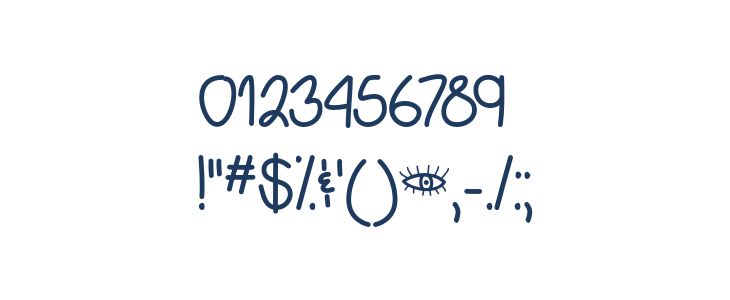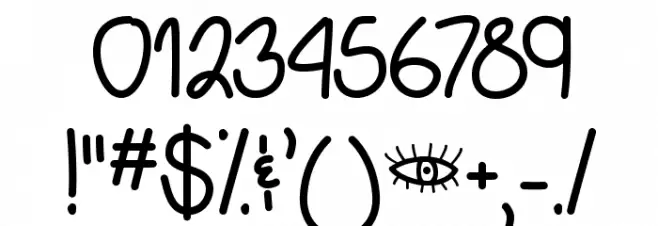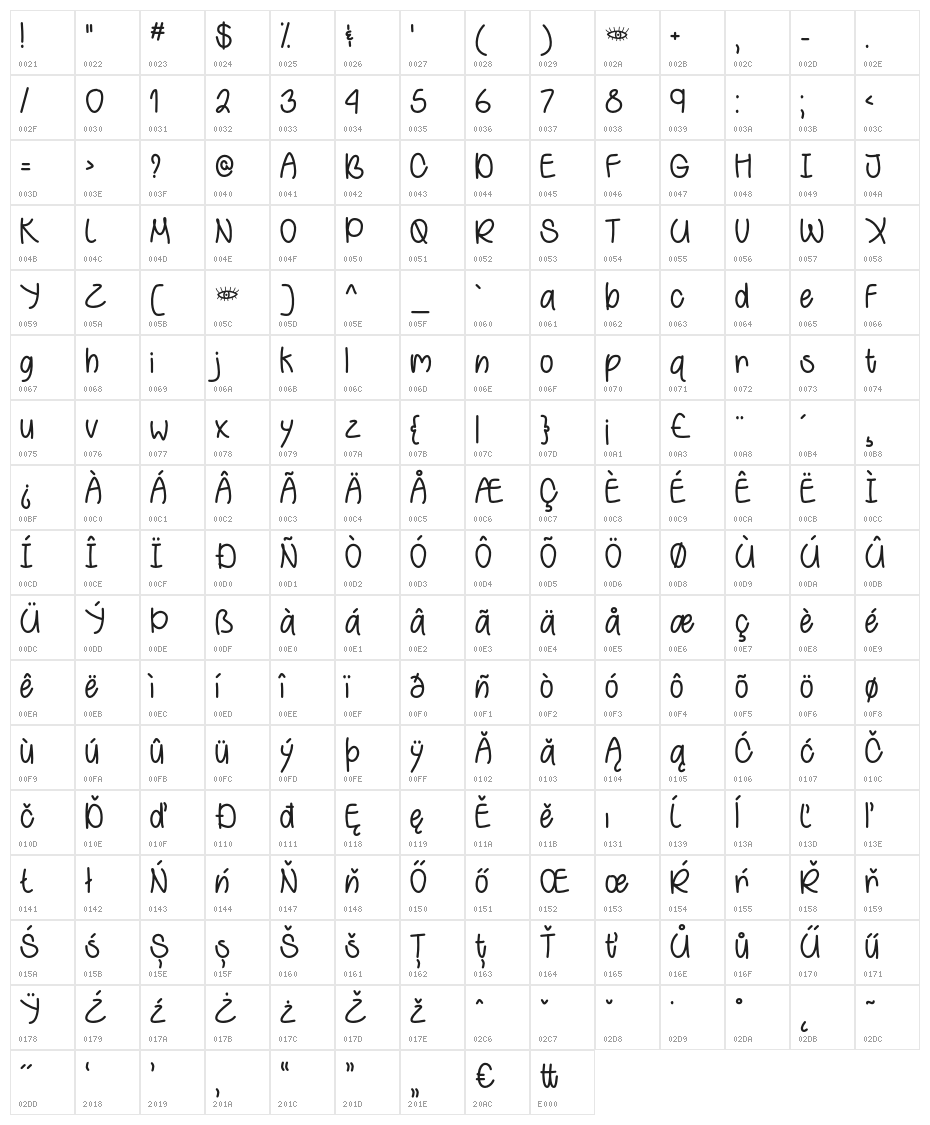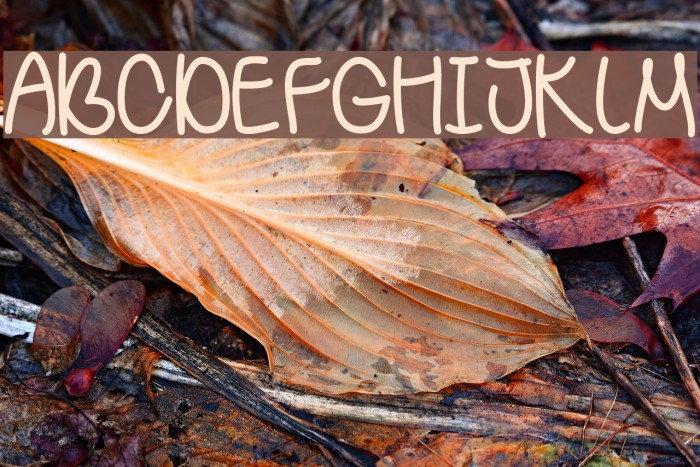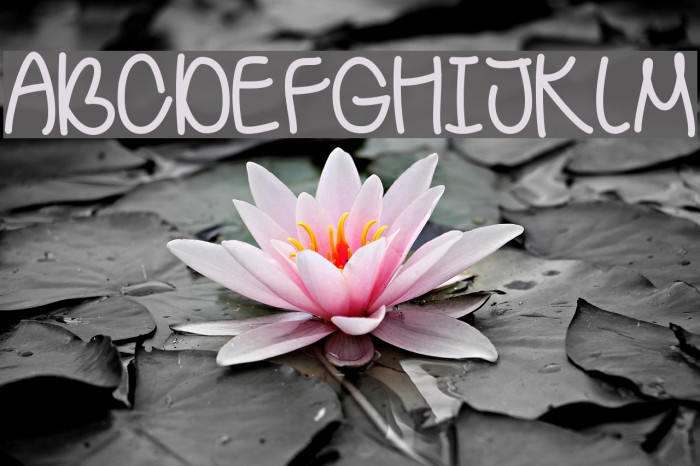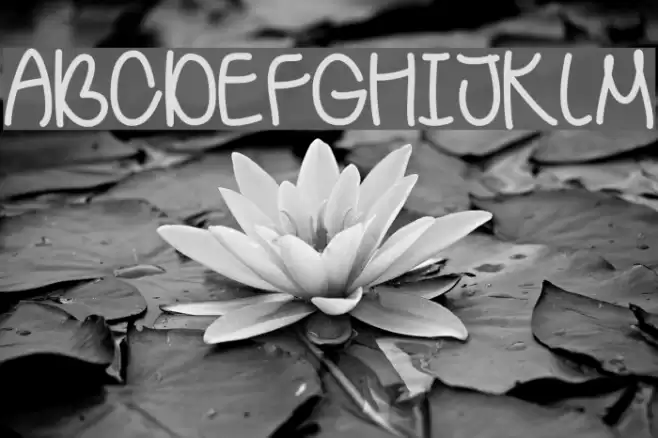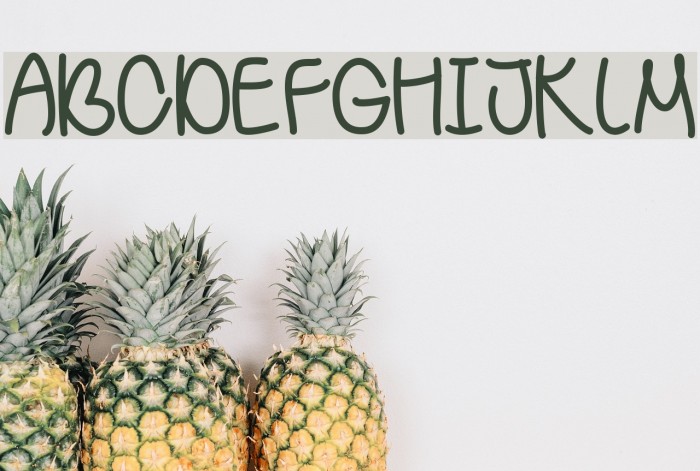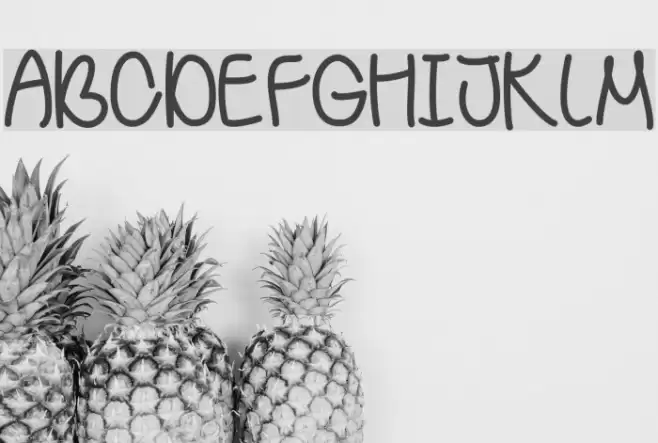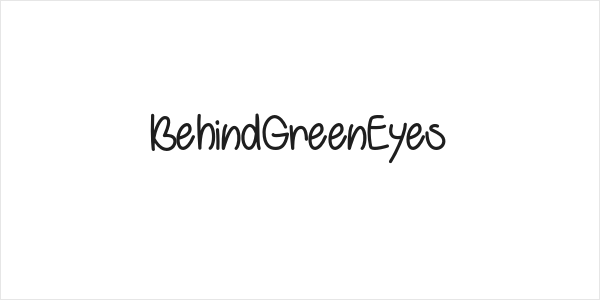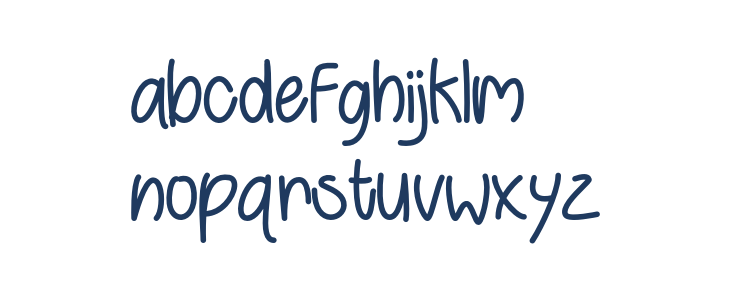
BehindGreenEyes Font
BehindGreenEyes Description
This playful and whimsical font features a handwritten style that exudes a casual and friendly vibe. The letters are rounded and slightly irregular, giving it a personal touch that feels approachable and informal. The uppercase and lowercase letters maintain a consistent flow, with smooth curves and a slight slant that adds to its dynamic appearance. The numbers and special characters are equally charming, with a unique flair that complements the overall aesthetic. This font is perfect for projects that require a touch of personality and creativity, making it ideal for invitations, greeting cards, and playful branding.
| Use Case | Invitations, Greeting cards, Playful branding |
| Proposed Projects | Ideal for invitations, greeting cards, playful branding, and creative projects. |